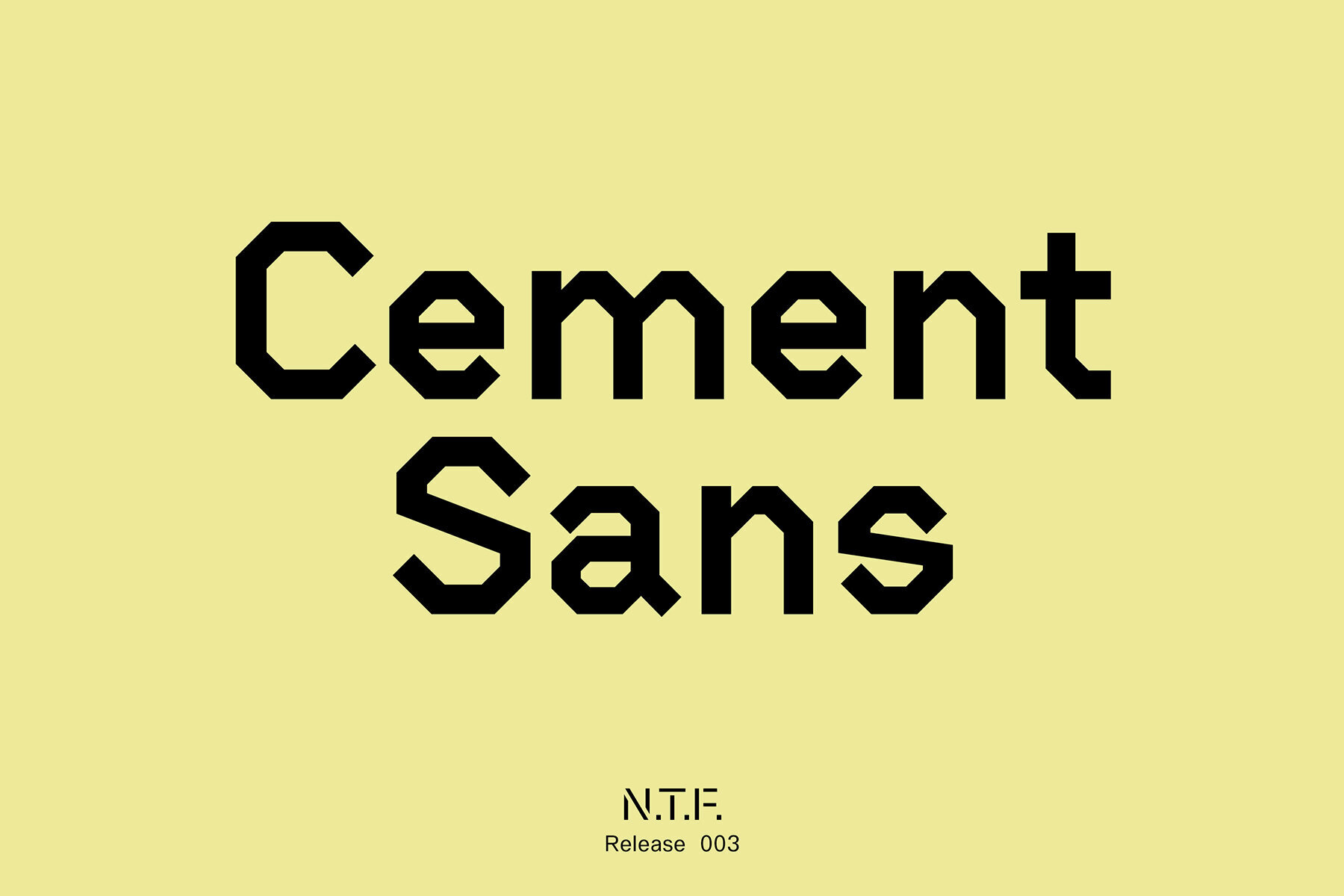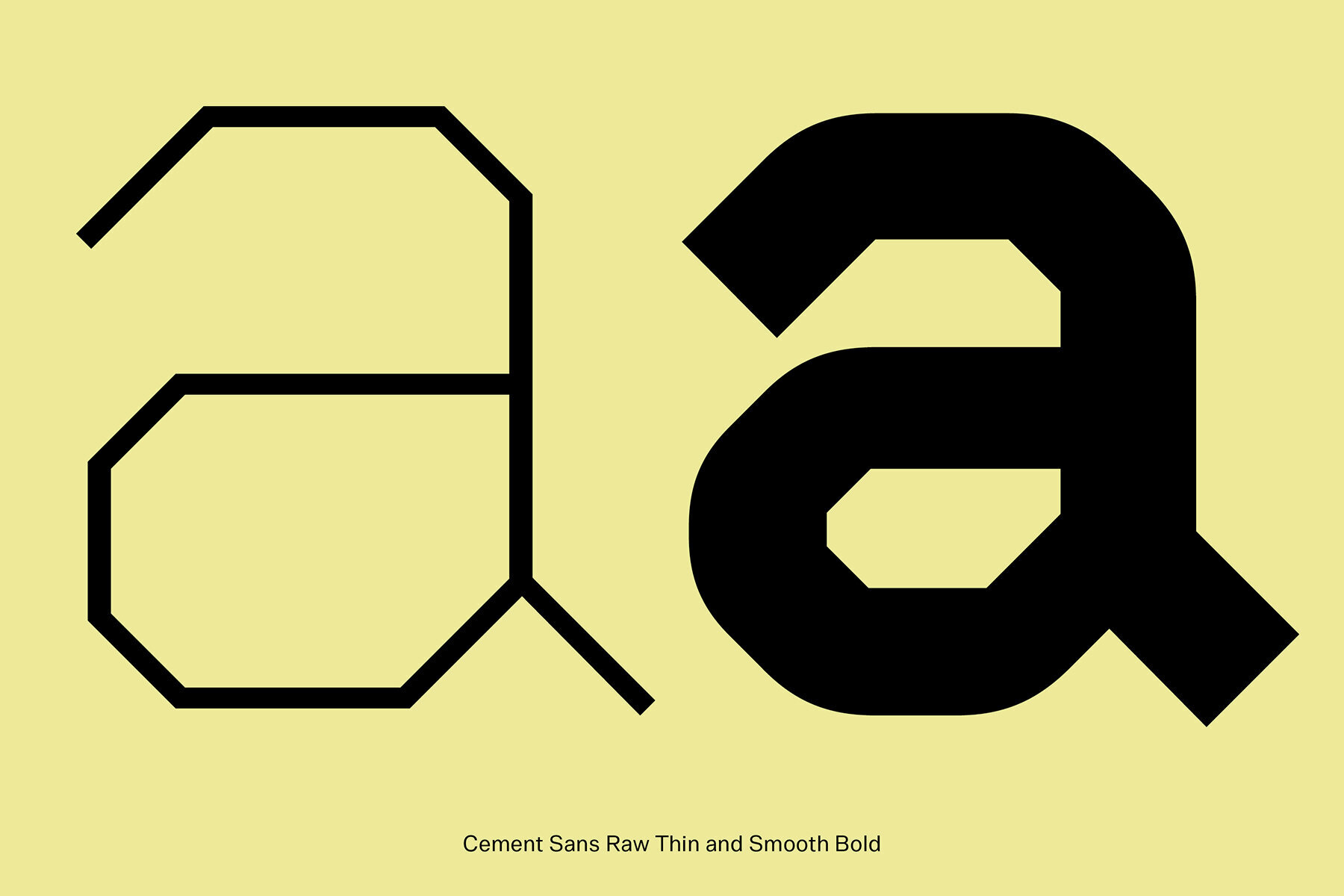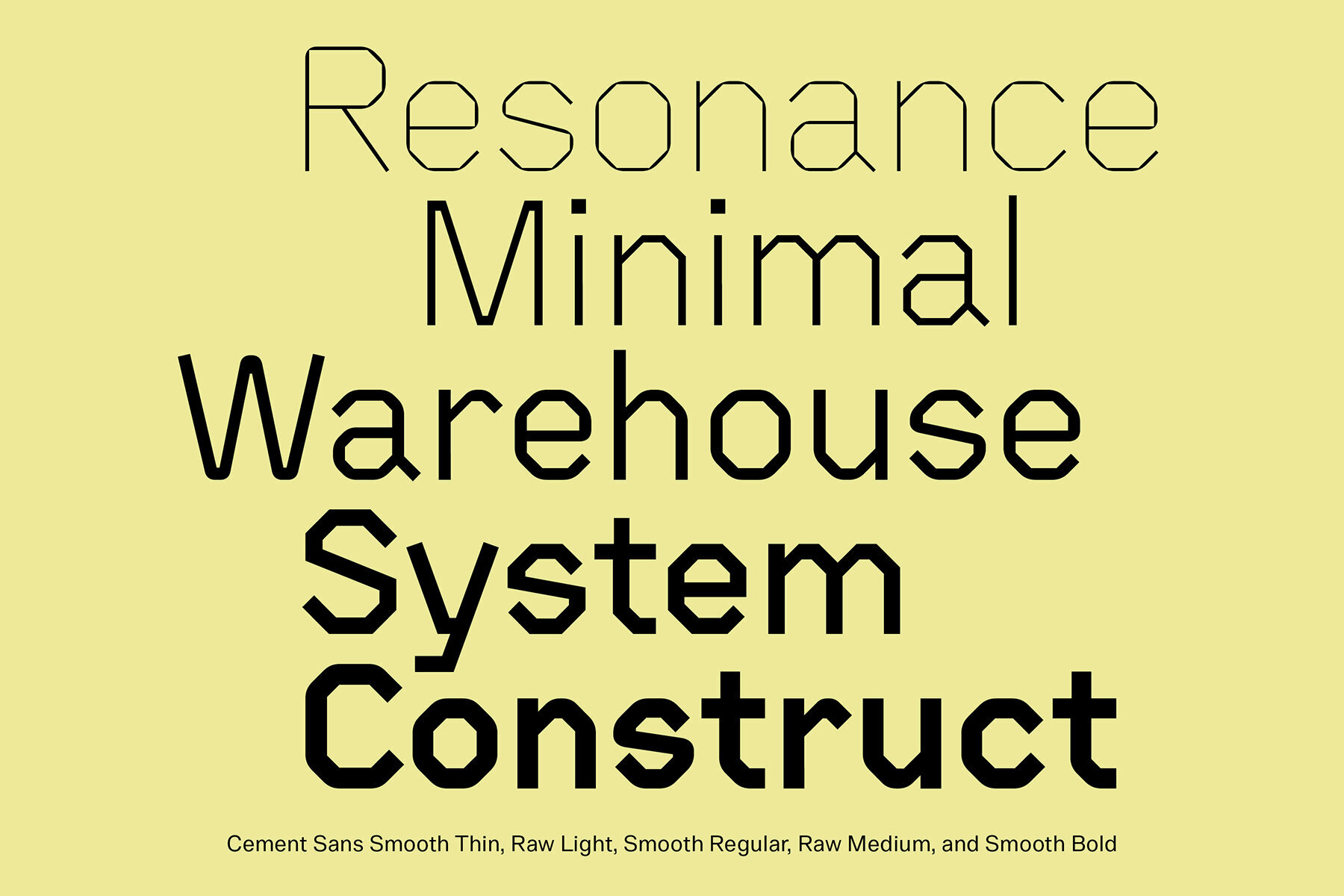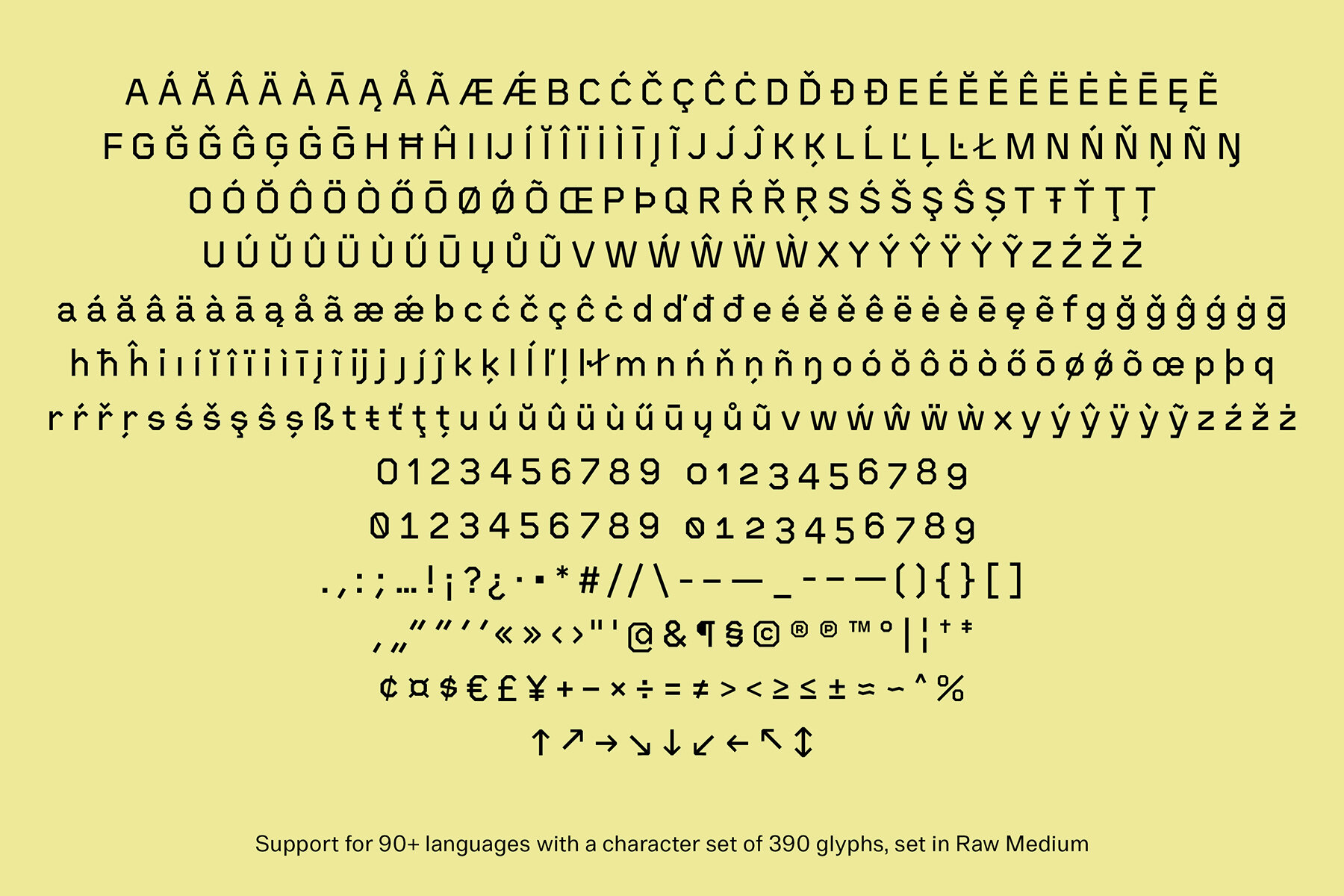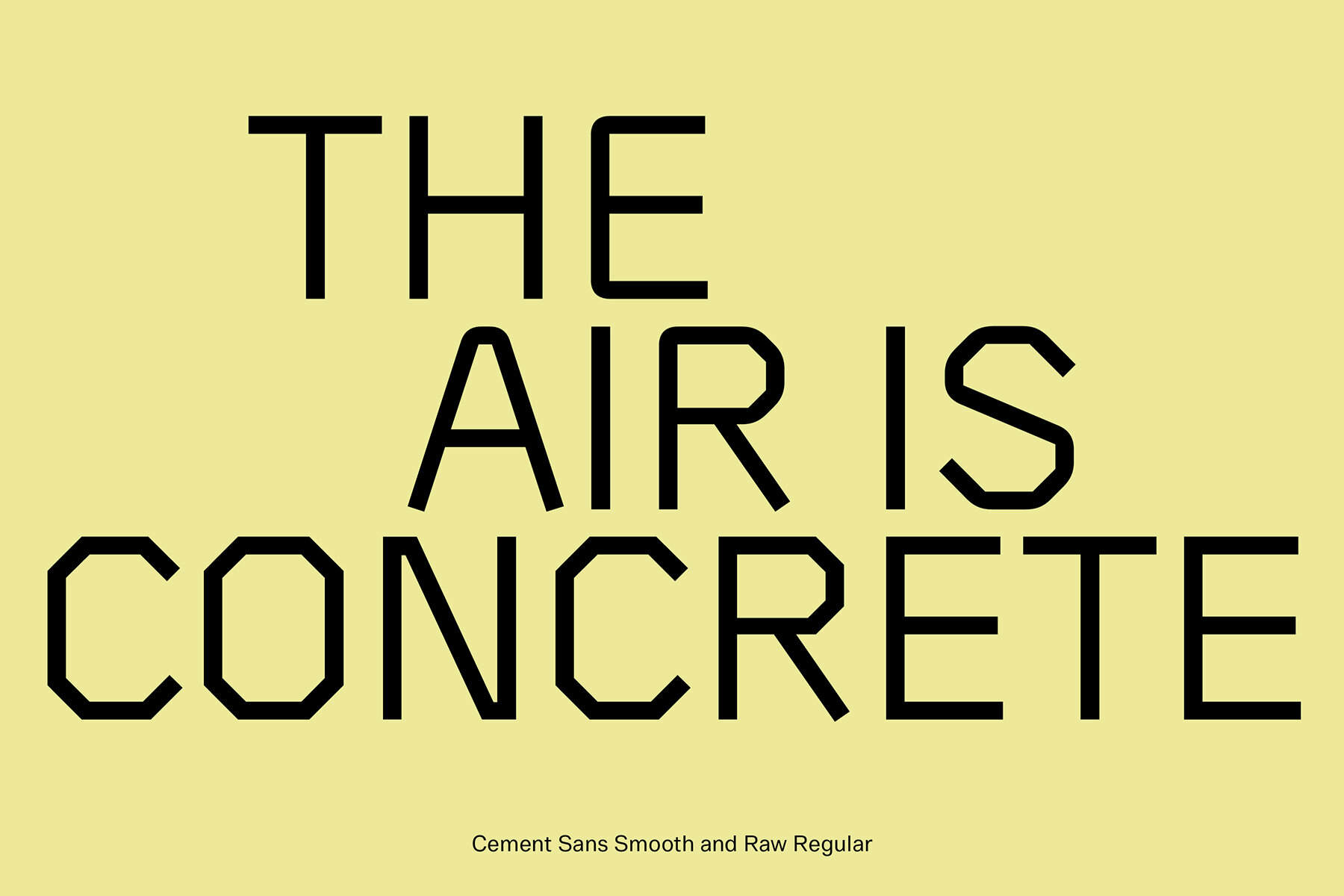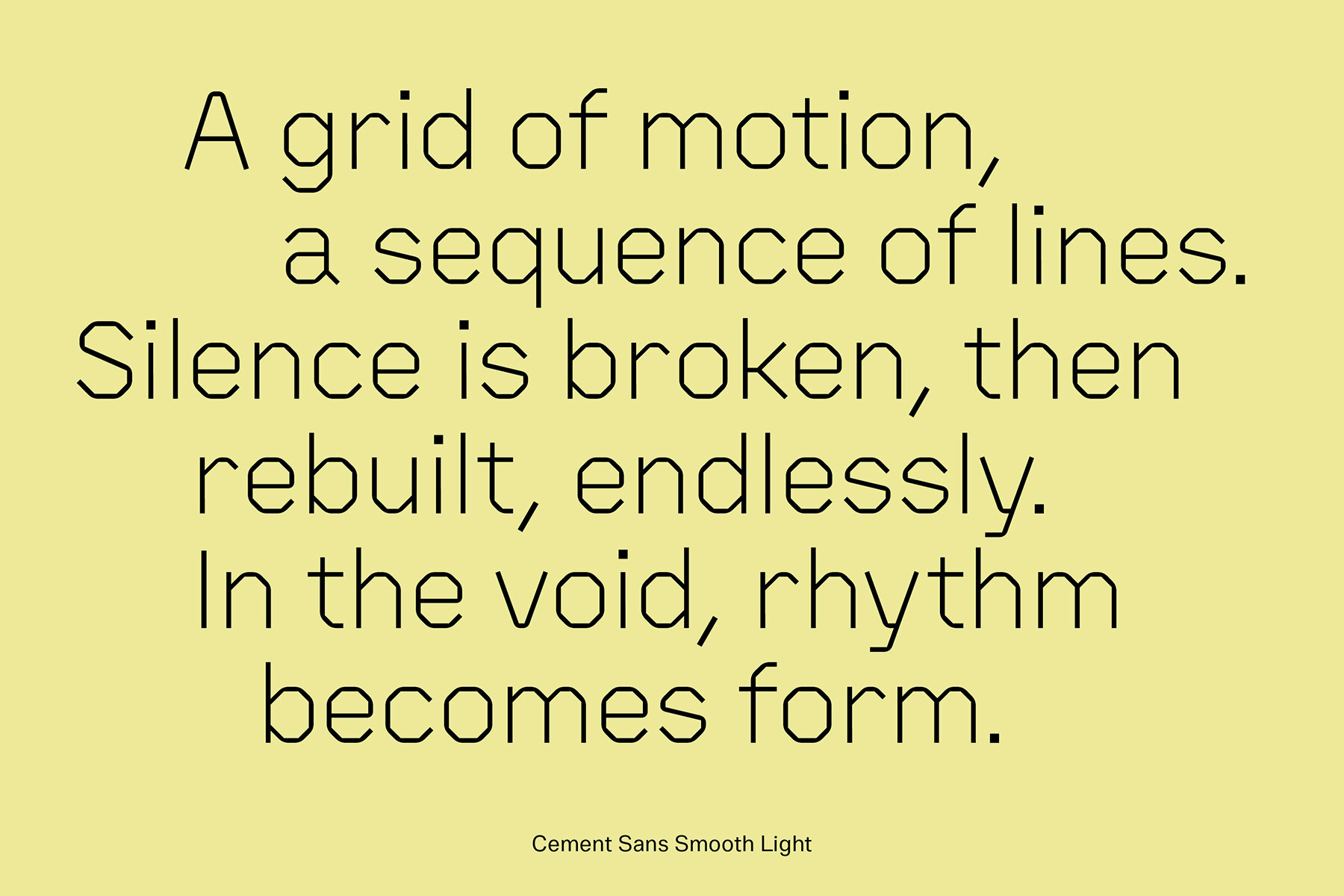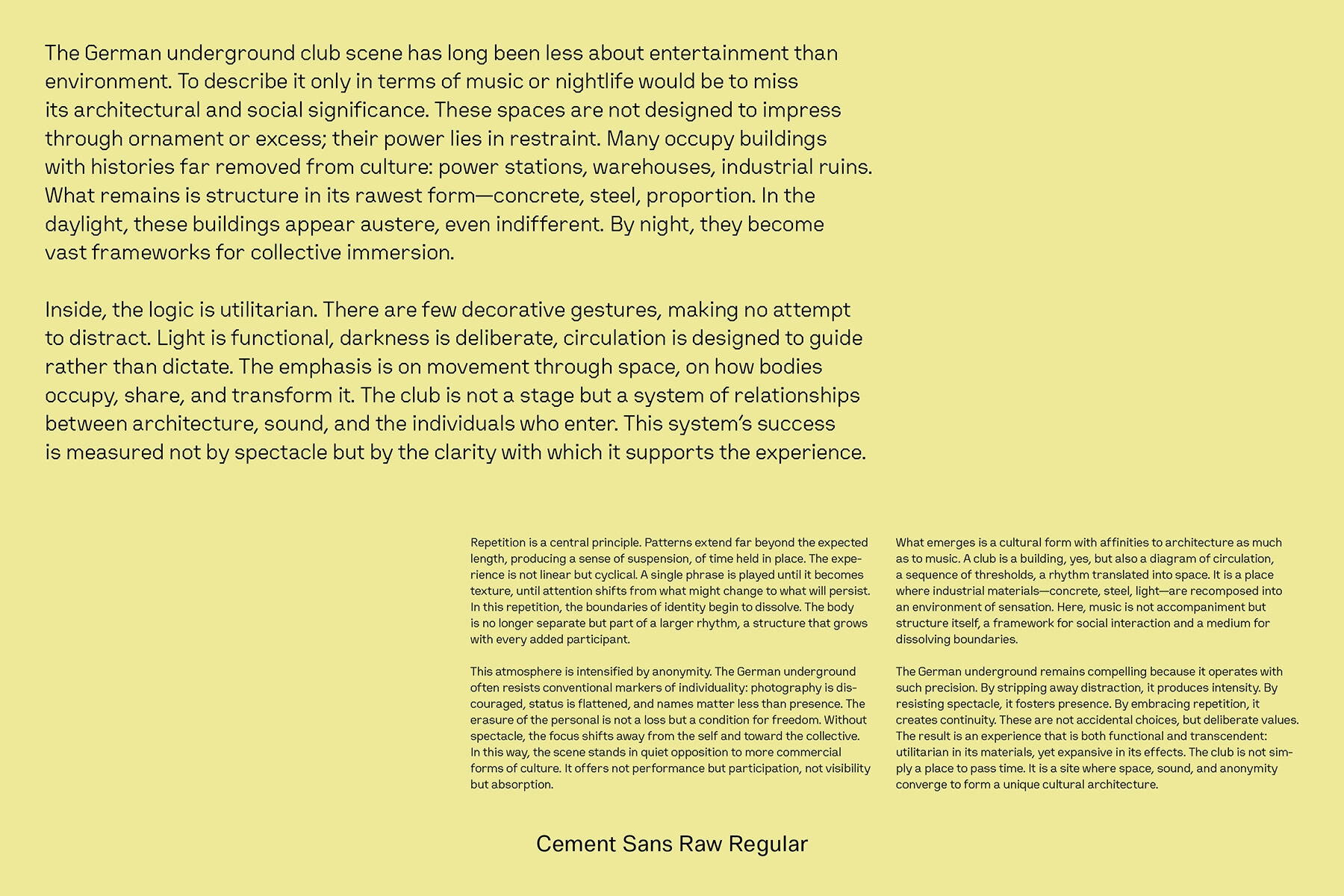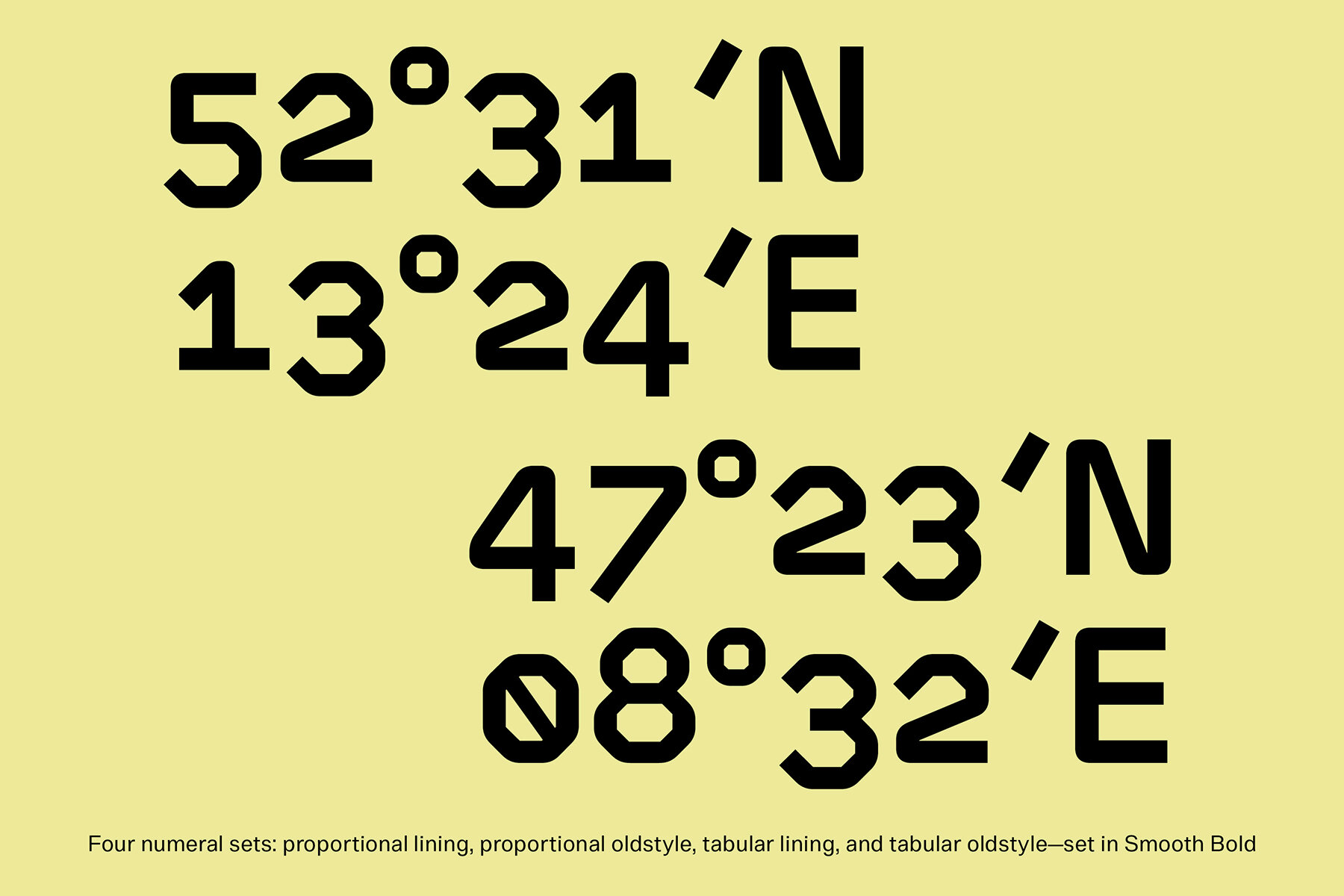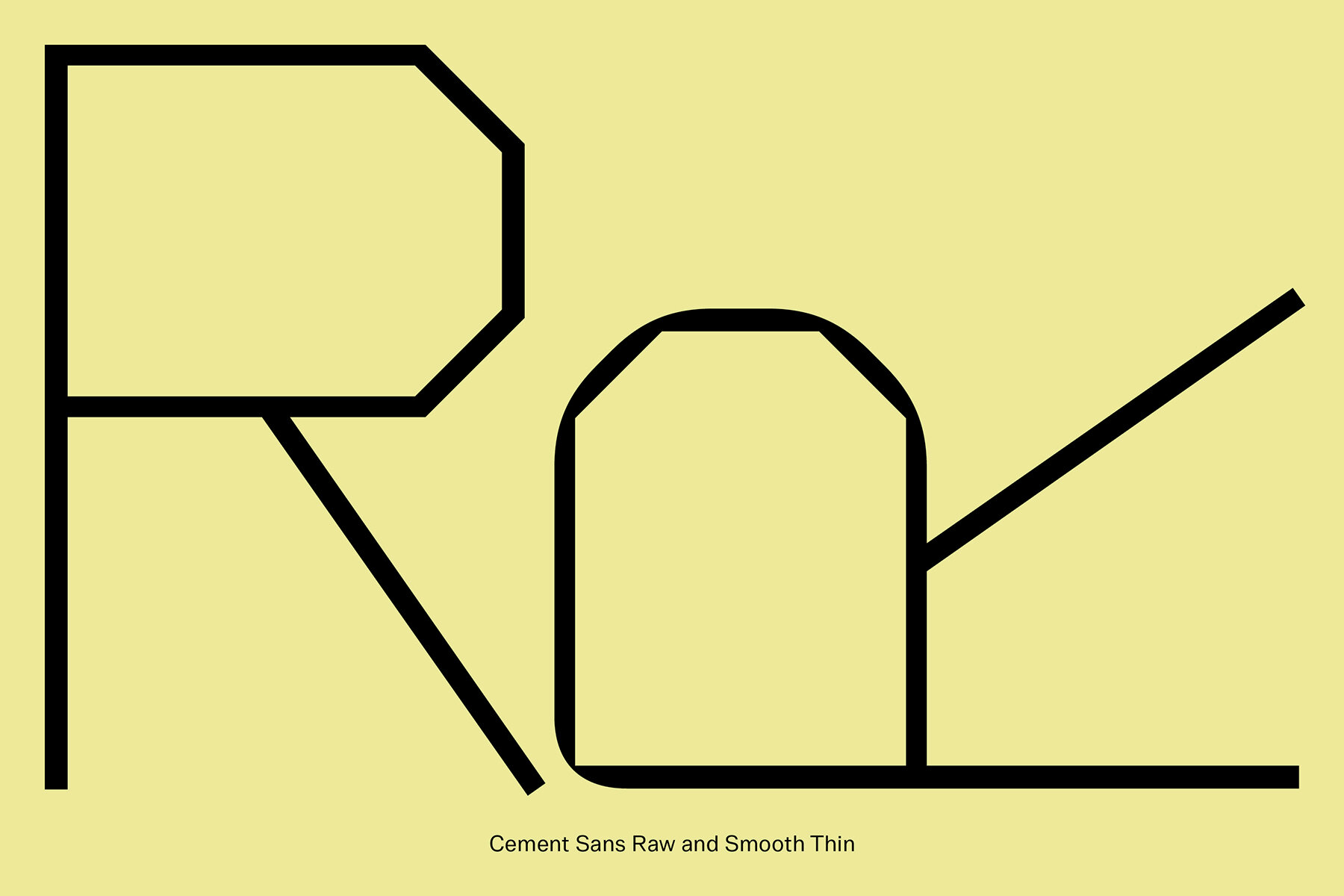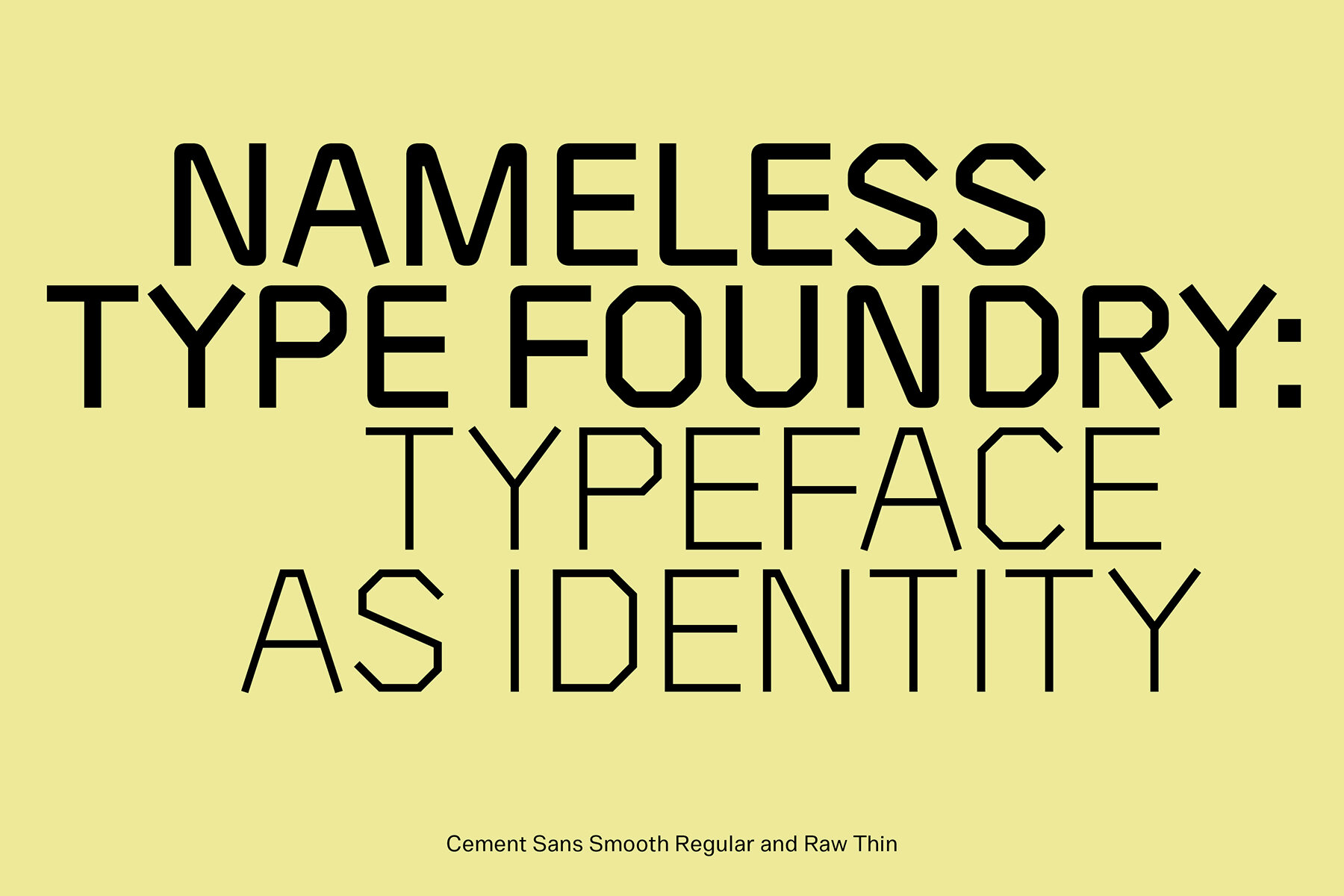
Cement Sans Font
Cement Sans embodies a robust architectural sensibility paired with the clarity of a sans serif. Offering five weights and two distinct styles—Raw and Smooth—this typeface adapts seamlessly to varied design needs. Designed to support over 90 languages, it caters to a global audience while maintaining a clean, sharp aesthetic.Cement Sans: A Structural Approach to Typography
Identity is built through type. Our fonts embody this belief by offering systems that can align with convention or resist it. Nameless Type Foundry publishes typefaces for creating and controlling identity.